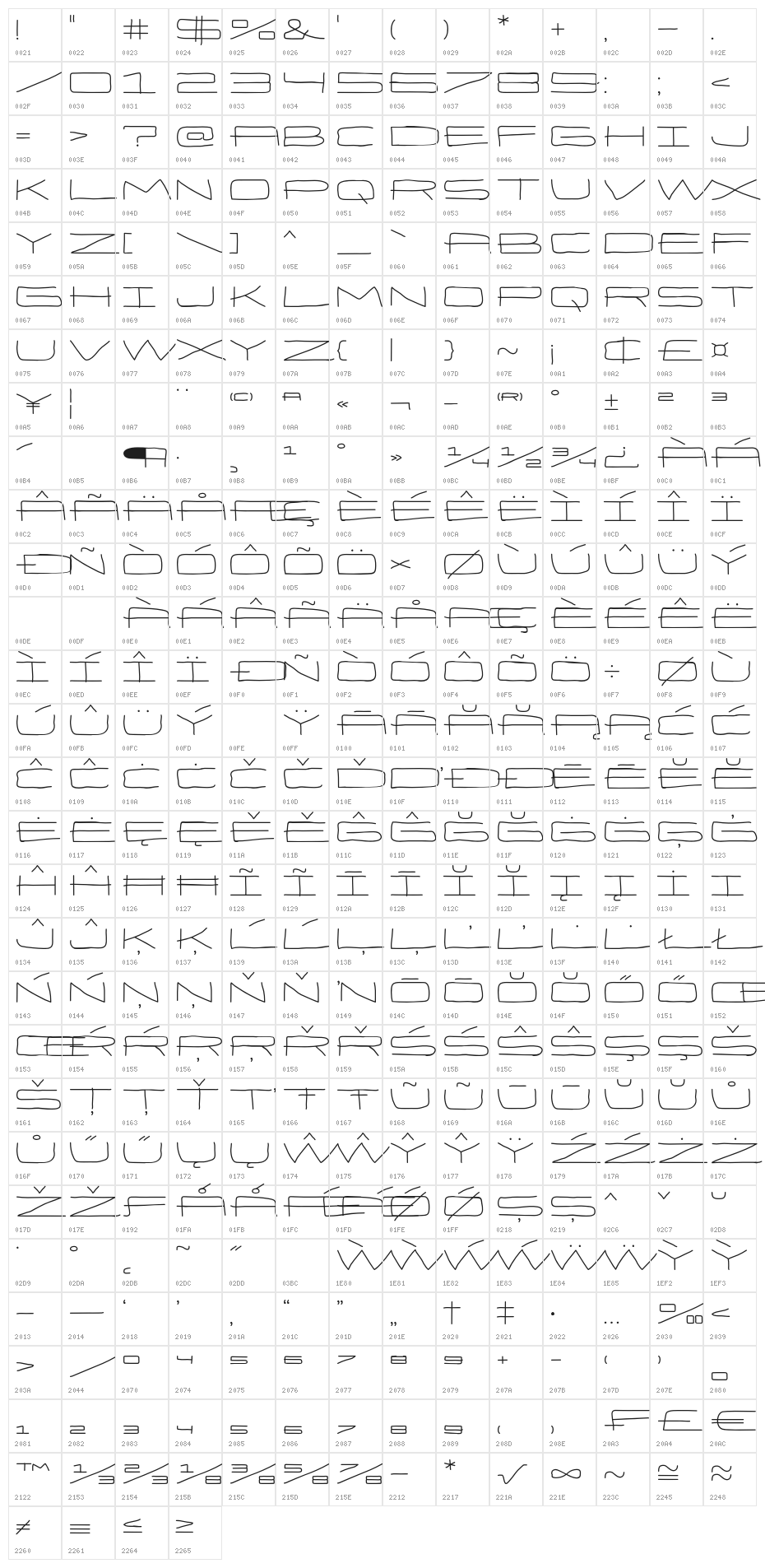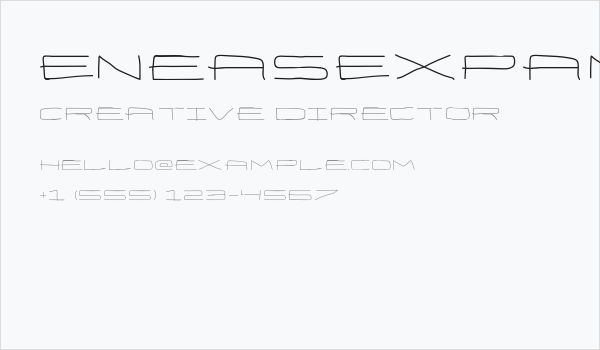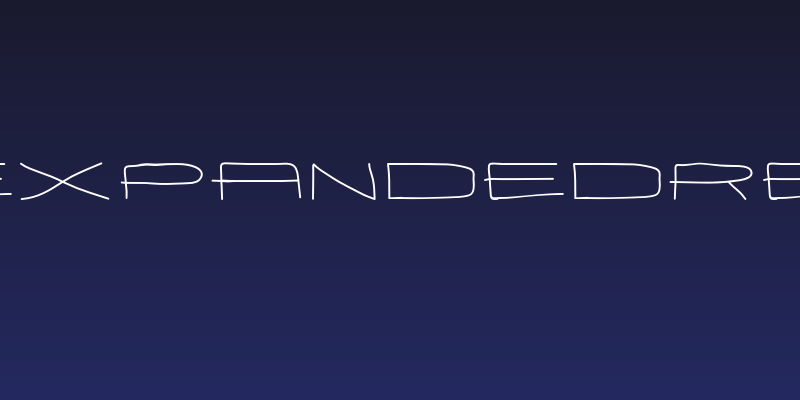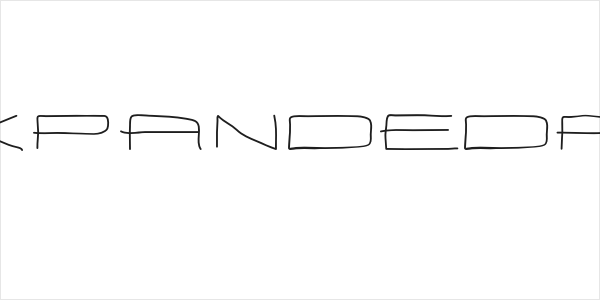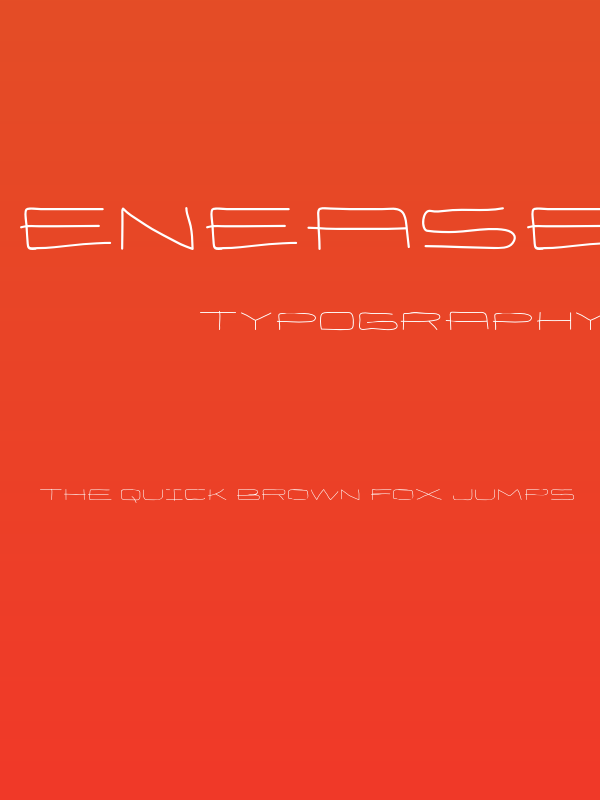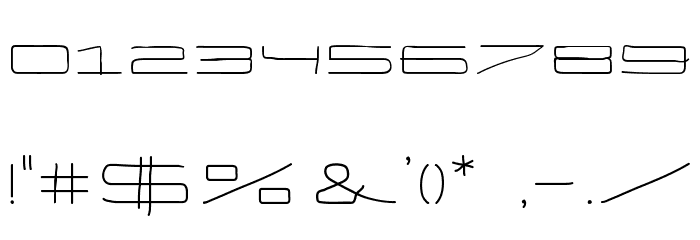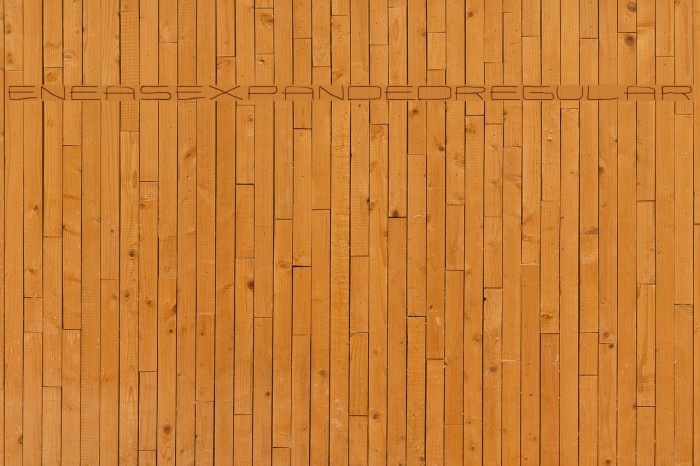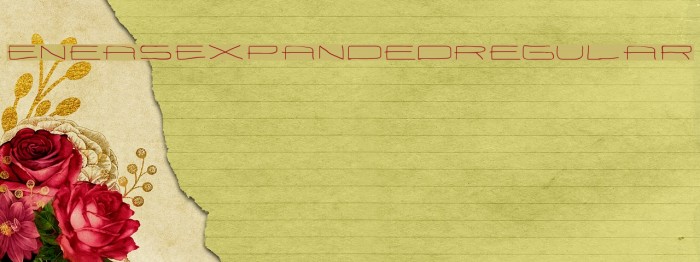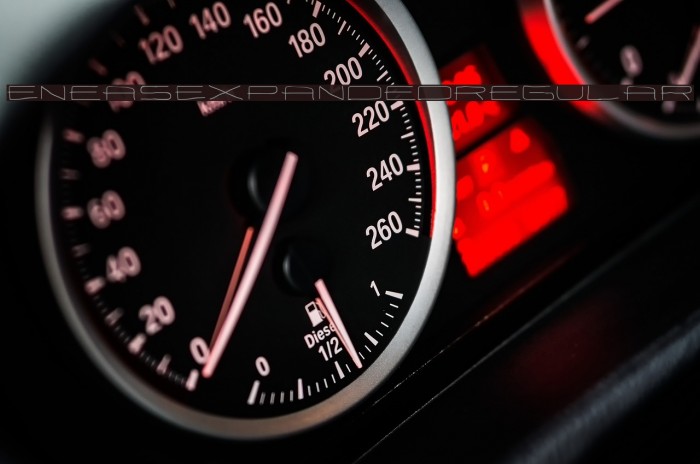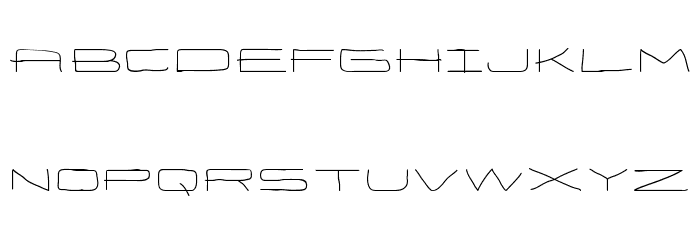
EneasExpandedRegular Font
EneasExpandedRegular Description
This font features a unique and modern design with an expanded width and geometric structure. The characters are constructed with thin lines and angular edges, giving it a futuristic and technical appearance. The uppercase and lowercase letters maintain a consistent style, with a focus on symmetry and balance. The numerals and special characters are designed to complement the overall aesthetic, ensuring a cohesive look across all elements. This font's distinct style makes it suitable for projects that require a contemporary and innovative touch.
| Width | Expanded |
| Use Case | Logos, Headlines, Tech Branding |
| Proposed Projects | Ideal for tech branding, futuristic designs, and innovative product packaging. |